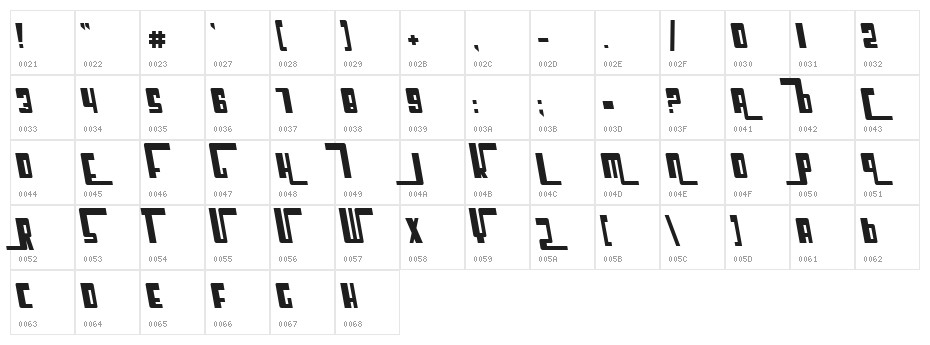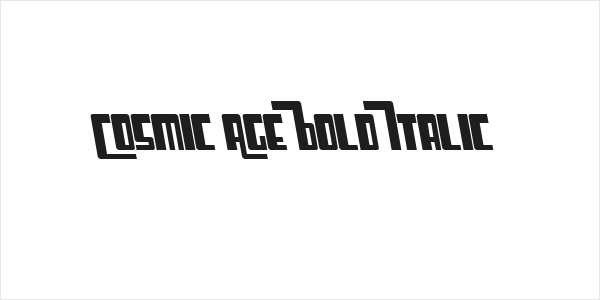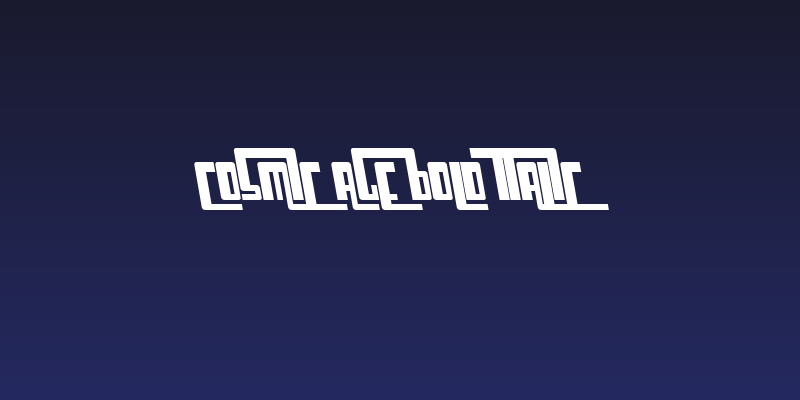
Cosmic Age Bold Italic Font
Cosmic Age Bold Italic Description
This font features a bold and italicized style with a futuristic and geometric design. The characters are wide and have a strong presence, making them ideal for attention-grabbing headlines or titles. The angular and blocky shapes give it a modern, tech-inspired look. The uppercase and lowercase letters maintain a consistent width, contributing to a uniform appearance. Numbers and special characters are designed to match the bold and dynamic style of the alphabet, ensuring a cohesive look across all text elements.
| Proposed Projects | Ideal for sci-fi themed posters, video game titles, technology branding, and futuristic event flyers. |